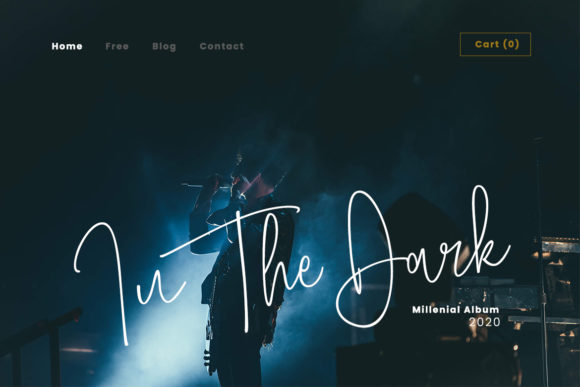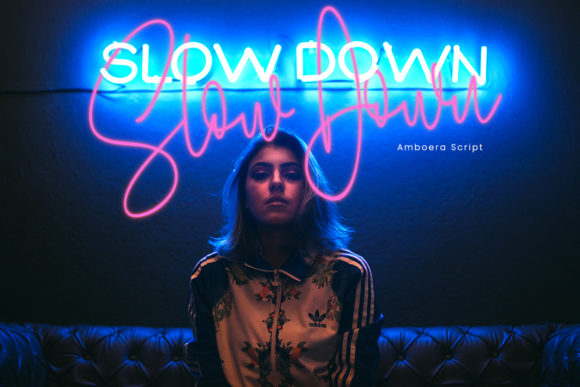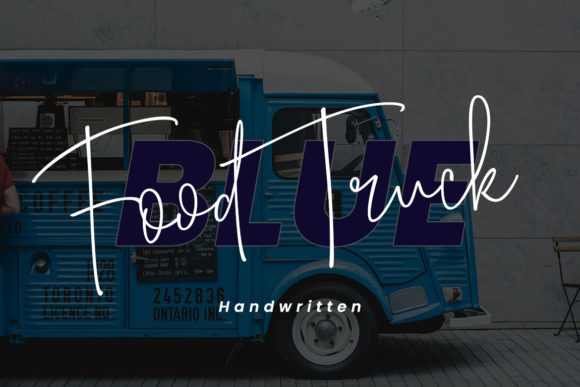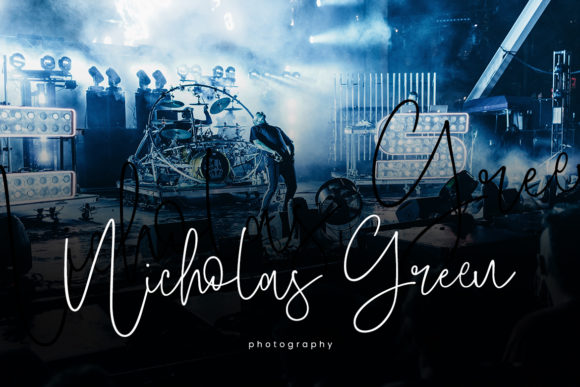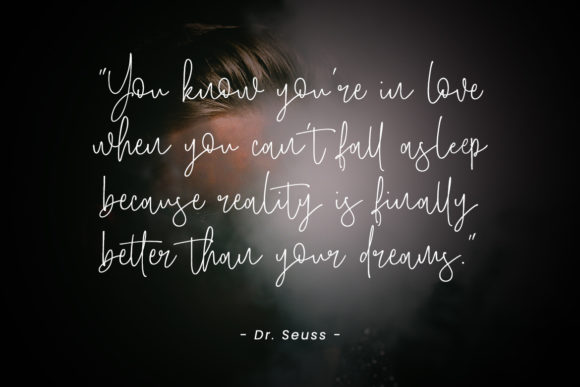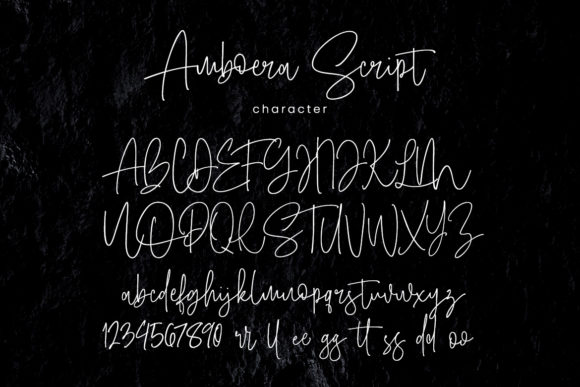
Introducing Amboera Script Font: Elevate Your Creativity with Elegance
In the world of typography, script fonts hold a special place for their ability to add a touch of elegance and sophistication to any design project. Among the myriad of script fonts available, Amboera Script stands out as a beacon of refinement and style. This stunning script font simplifies elegance into one truly outstanding design, making it an indispensable tool for designers, crafters, and DIY enthusiasts looking to elevate their creative projects.
The Essence of Amboera Script Font
Amboera Script is not just another script font; it’s a masterpiece that brings a new level of sophistication to the world of typography. Its fluid strokes, graceful curves, and impeccable lines make it the perfect choice for anyone aiming to add a touch of luxury and elegance to their work. Whether you’re designing for Instagram, crafting calligraphy for DIY projects, or working on professional branding materials, Amboera Script transforms any creative idea into a true piece of art.
One of the key advantages of Amboera Script Font is its versatility. Its unique yet approachable design makes it suitable for a wide range of applications. Here are a few ways you can use Amboera Script to elevate your projects:
- Instagram Graphics: Stand out on social media with beautifully crafted Instagram posts and stories. Amboera Script’s elegant design is sure to capture the attention of your audience and leave a lasting impression.
- DIY Projects: Add a personal touch to your DIY projects with stunning calligraphy. From handmade cards to craft labels, Amboera Script brings a level of sophistication that makes your creations truly special.
- Branding and Marketing: For businesses, Amboera Script can be a game-changer in branding. Use it for logos, packaging, or promotional materials to convey elegance and professionalism.
- Wedding and Event Planning: Create beautiful wedding invitations, event banners, and more with Amboera Script. Its elegant appearance is perfect for making your special day even more memorable.
Why Choose Amboera Script Font?
With so many script fonts available, what sets Amboera Script apart? Here are a few reasons why designers and crafters are falling in love with this font:
- Elegant Design: Amboera Script boasts an exceptionally elegant design that can elevate any project.
- Easy to Read: Despite its intricate design, Amboera Script remains highly legible, making it perfect for both headings and body text.
- Highly Versatile: Its adaptability makes it suitable for a wide range of creative projects, from digital designs to handmade crafts.
- User-Friendly: Amboera Script is easy to use, even for those who are new to working with script fonts.
Amboera Script Font is more than just a script font; it’s a tool that can transform your creative projects into stunning works of art. Its elegance, versatility, and ease of use make it an invaluable asset for designers, crafters, and DIY enthusiasts alike. Whether you’re looking to enhance your Instagram graphics, add sophistication to your DIY projects, or elevate your professional branding, Amboera Script is the perfect choice. Embrace the beauty of Amboera Script and watch your creative ideas flourish into elegant realities.